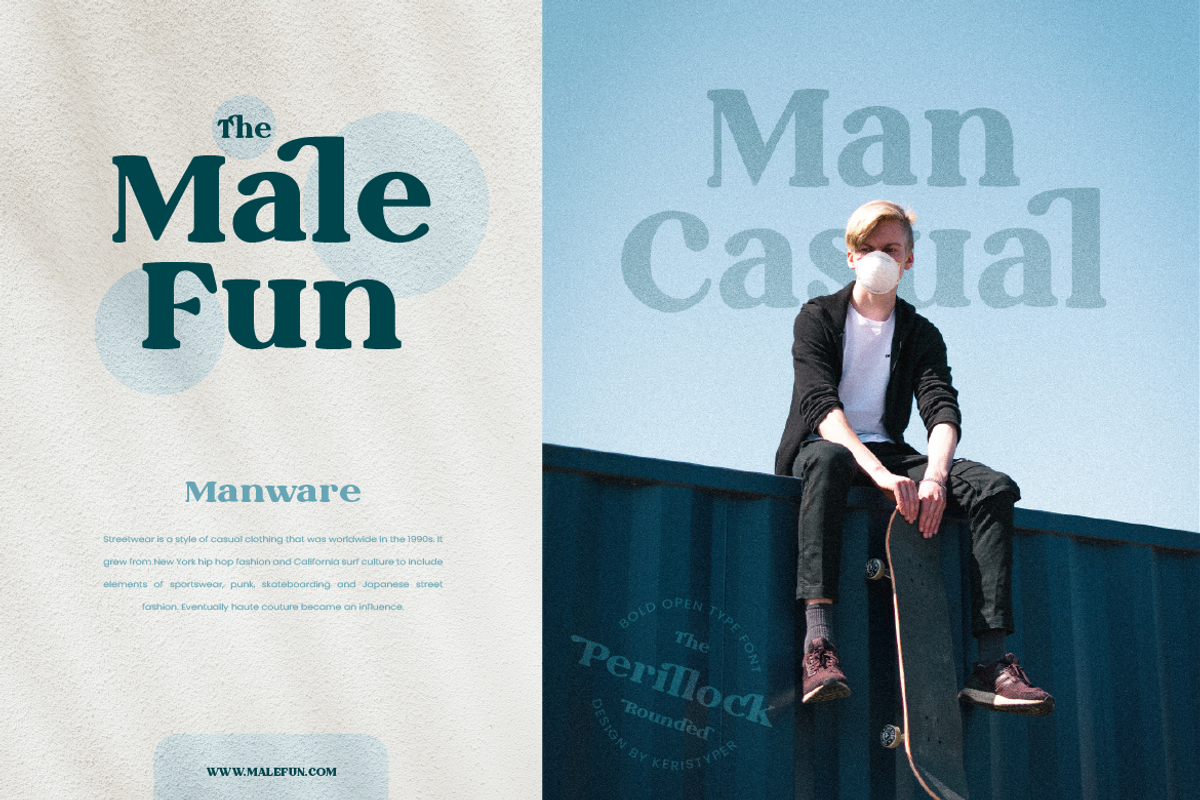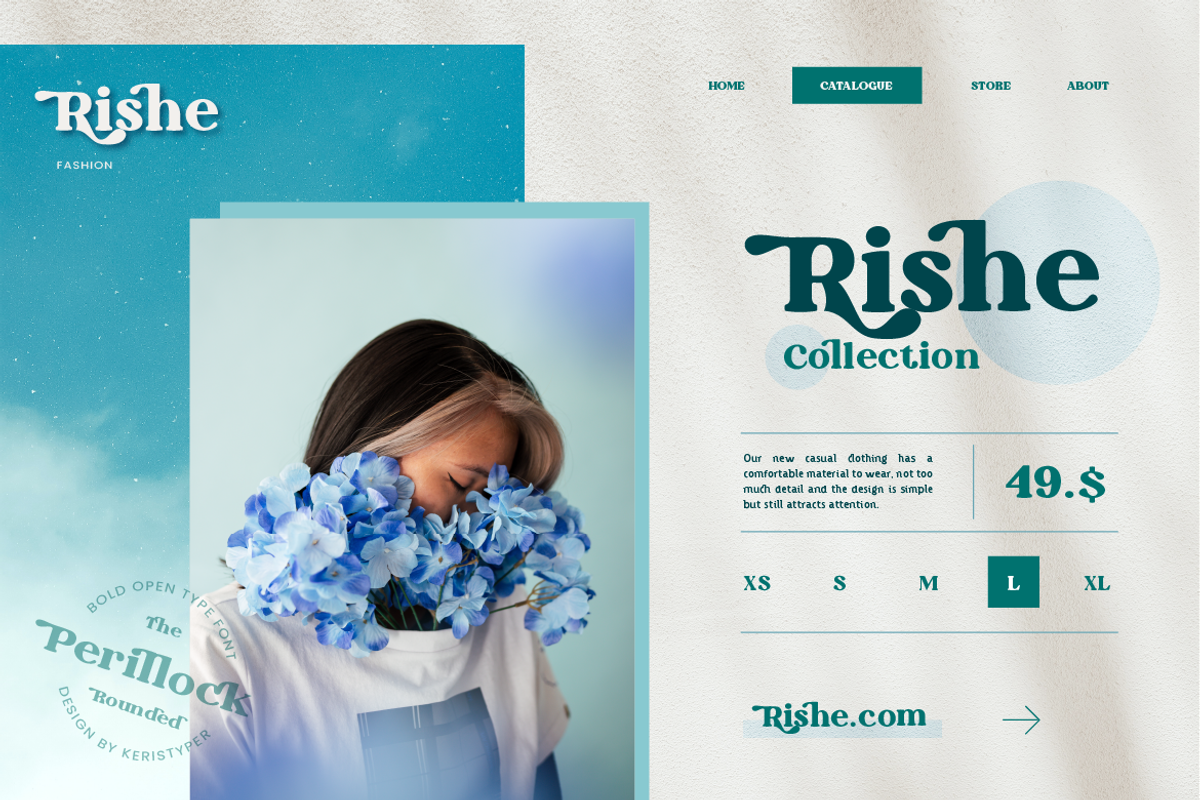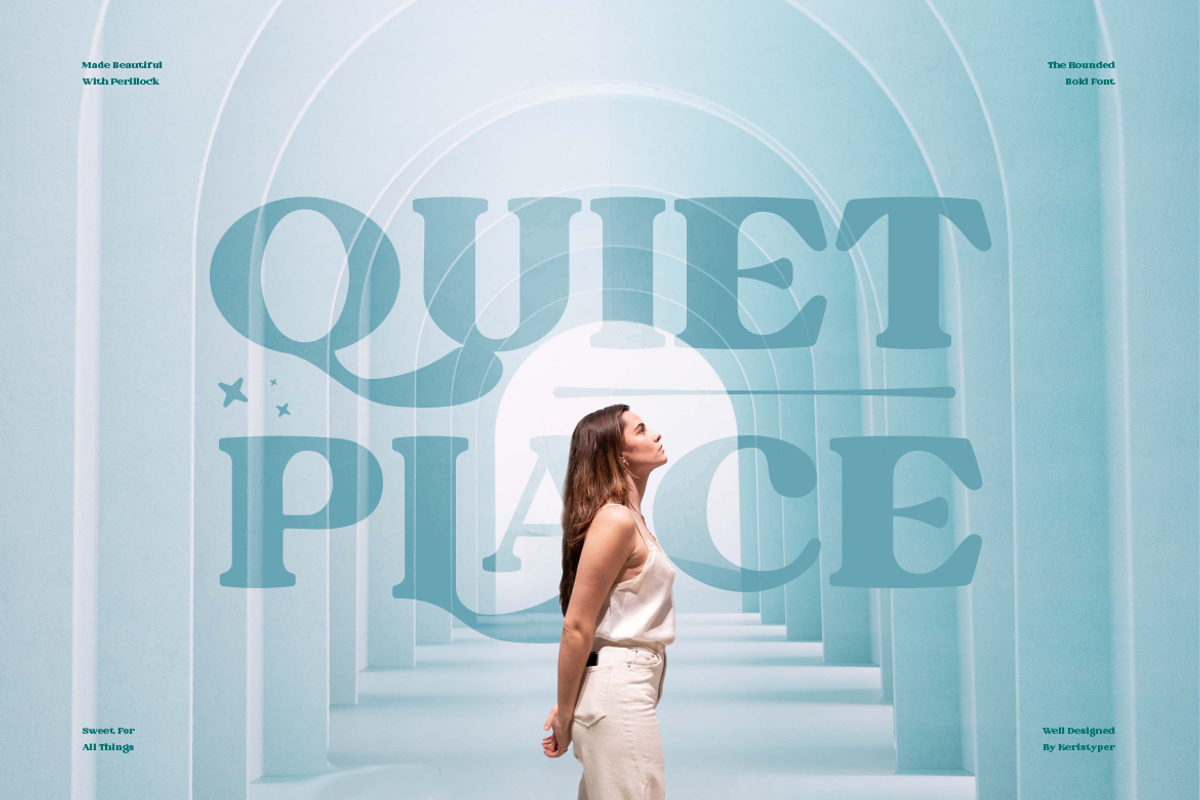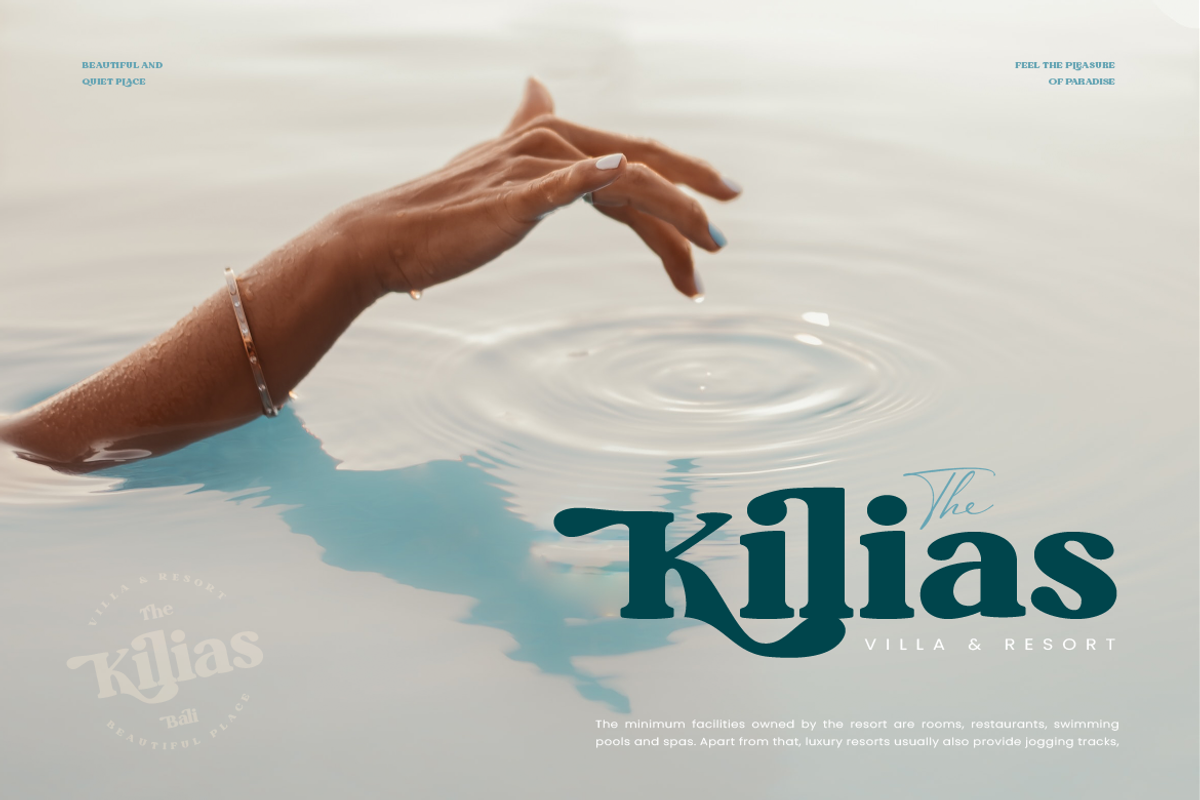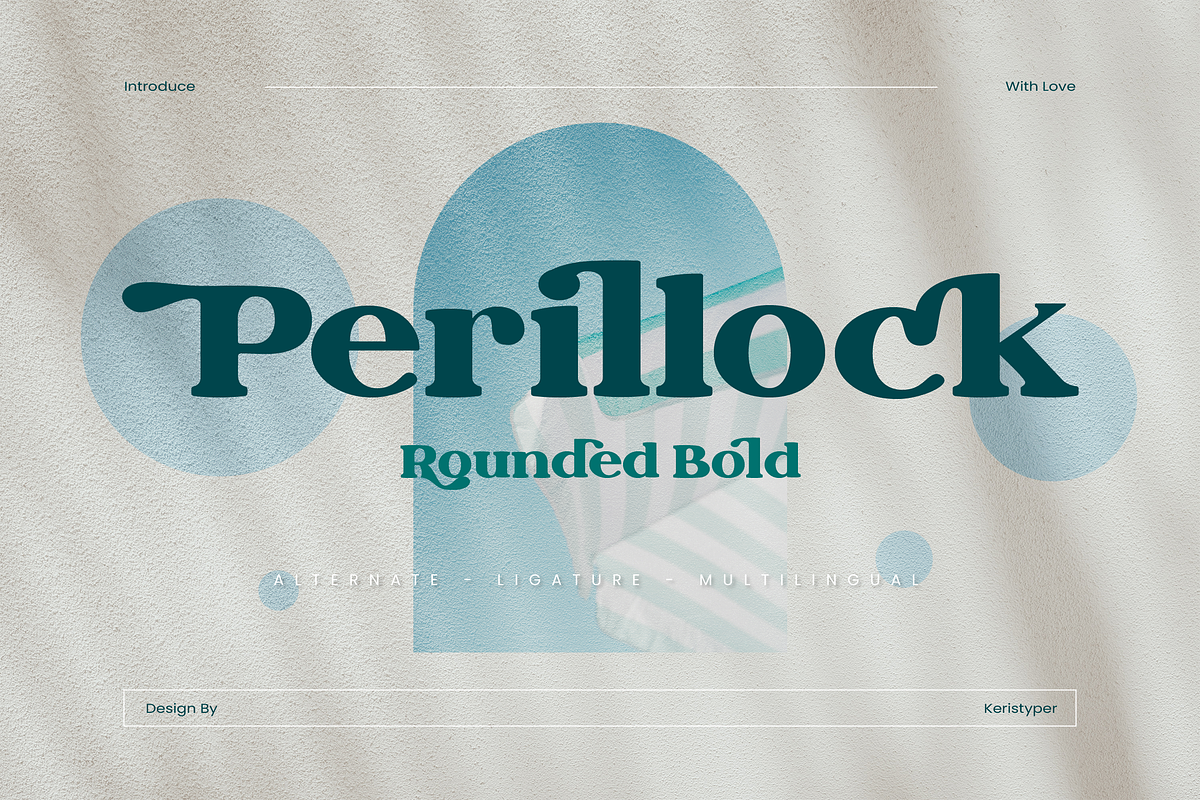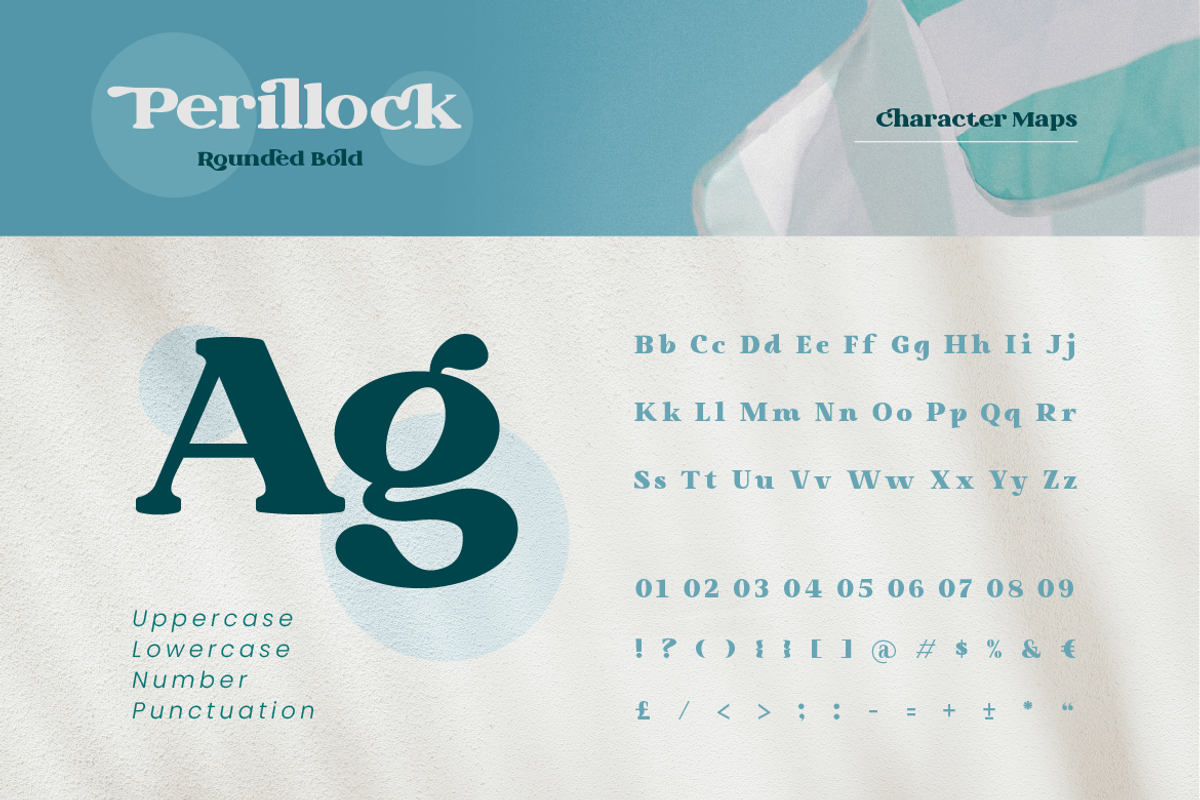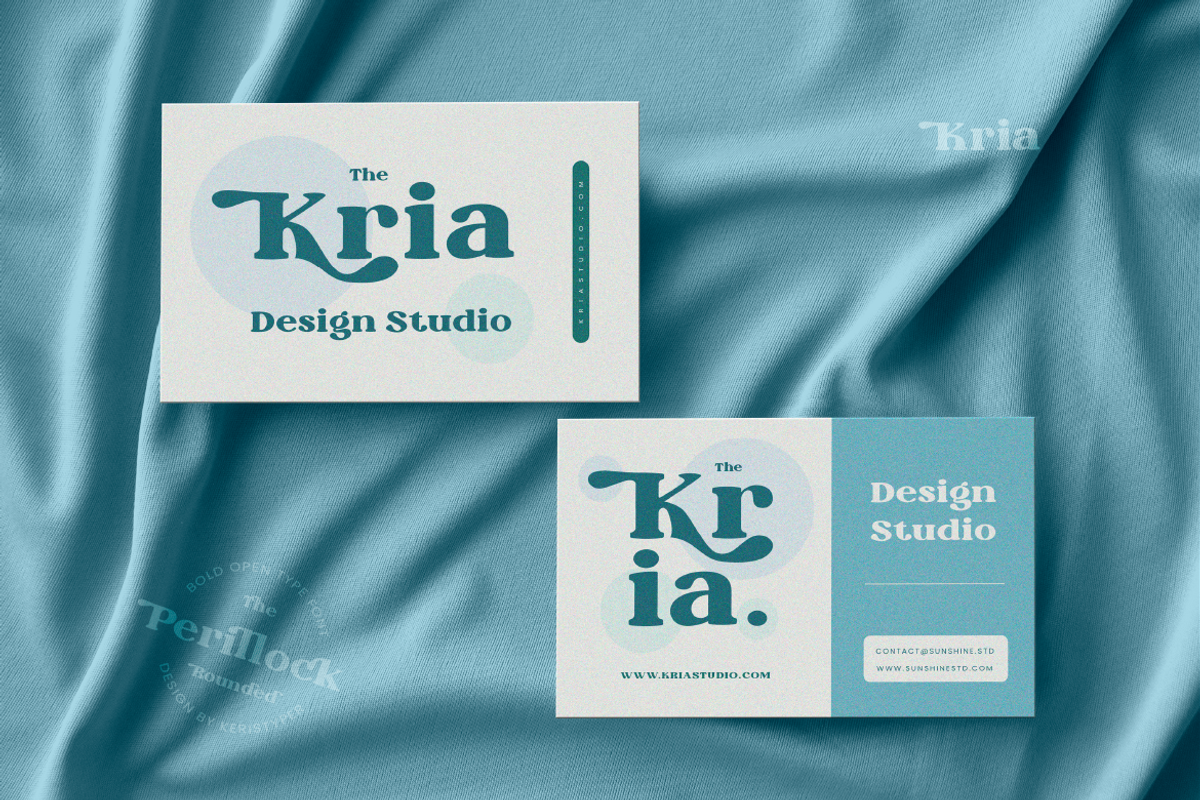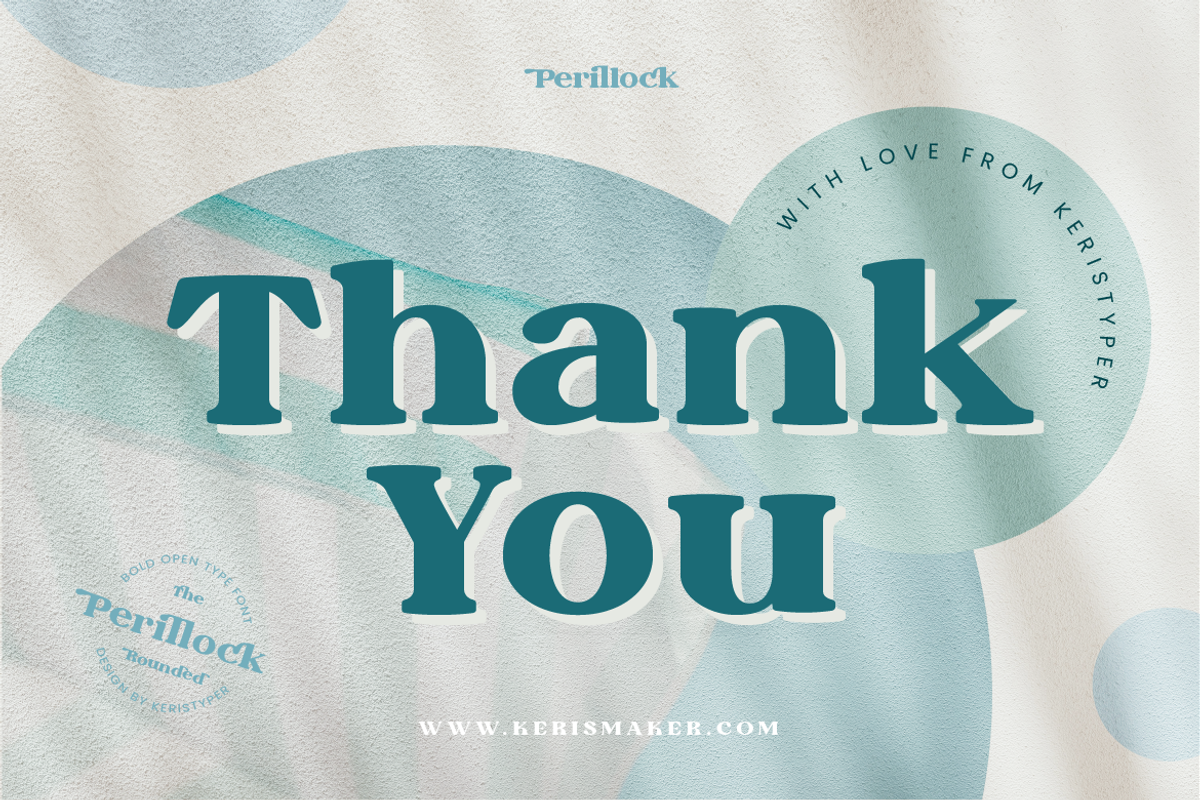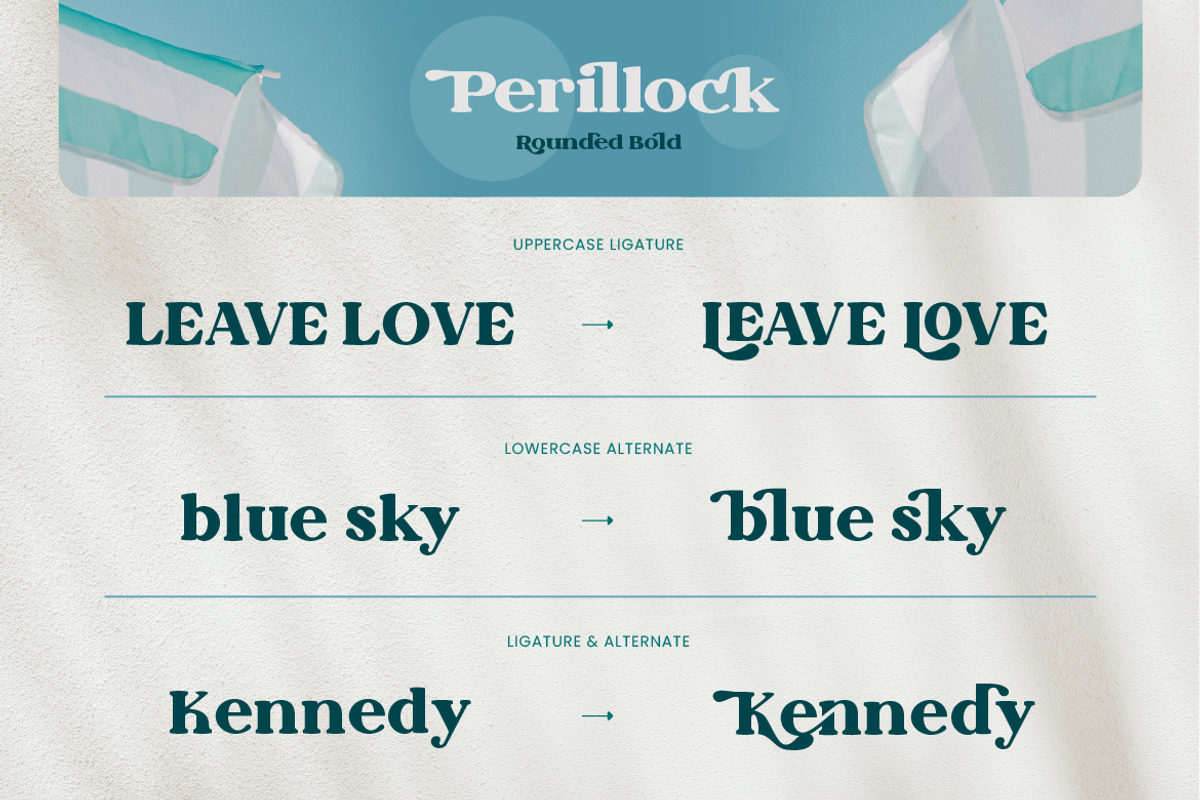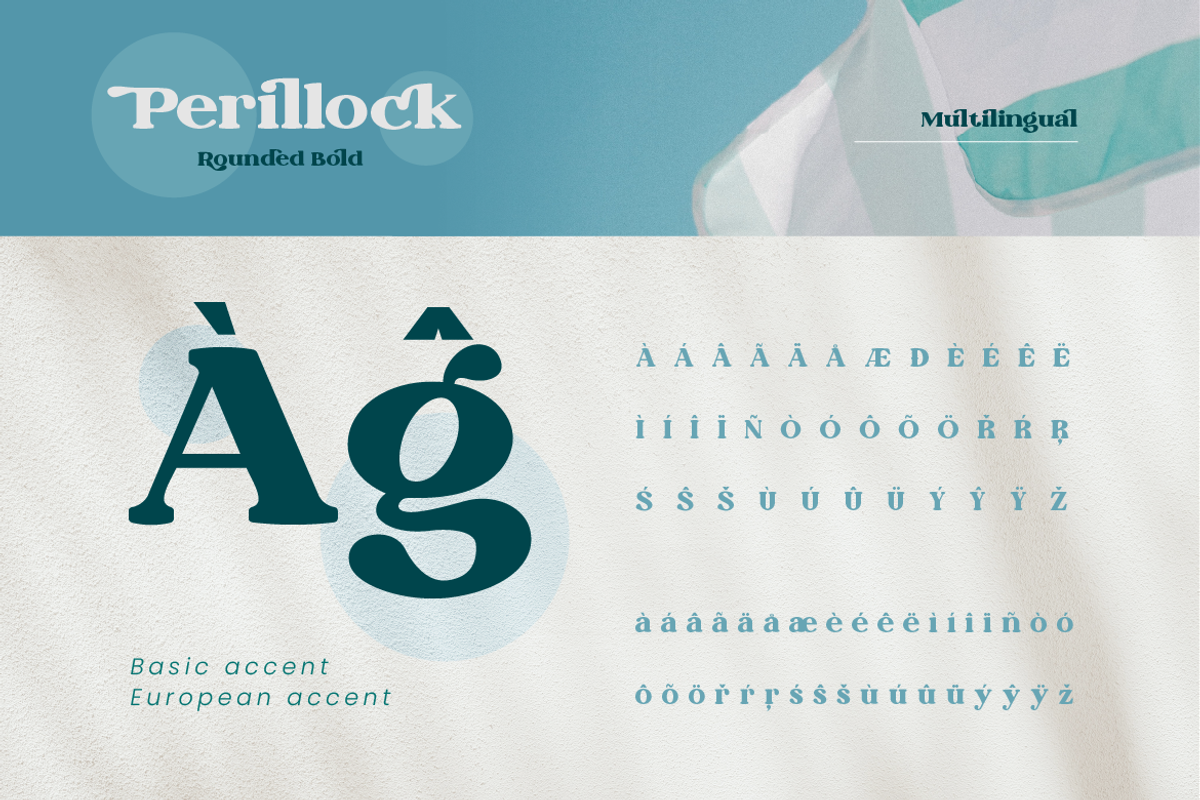
Perillock
Perillock font is a clean and modern typeface with a rounded bold design. This font is perfect for headlines, titles, logos, and other design projects that require a bold and attention-grabbing look. Its smooth and consistent curves give it a friendly and approachable feel, making it suitable for a wide range of design applications. Whether you're creating a poster, packaging design, or website, Perillock is sure to make your text stand out.
- Standard, Uppercase & Lowercase
- Multilingual : ä ö ü Ä Ö Ü ß ¿ ¡
- Alternate & Ligature